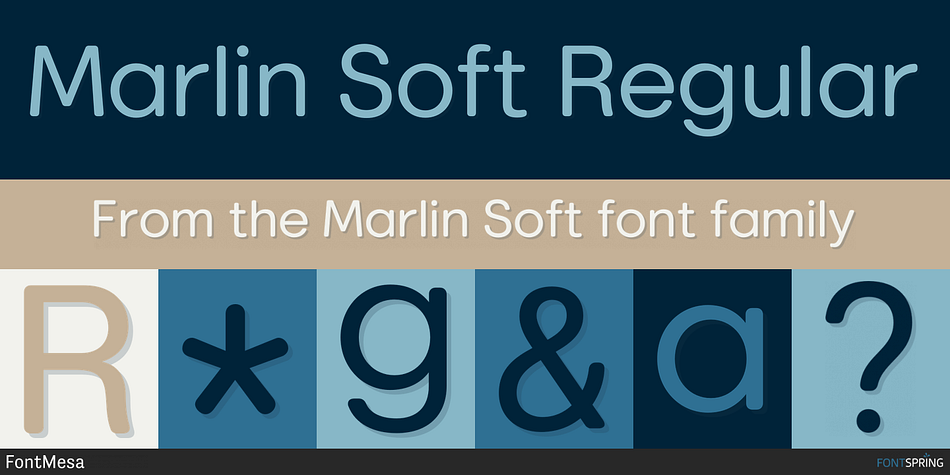
Marlin Soft Regular
Designed by Michael Hagemann, Marlin Soft is a sans serif font family. This typeface has sixty styles and was published by FontMesa.
Marlin Soft is a rounded corner version of our Marlin Sans font family and like its parent font also includes two sets of italics. The standard italic is set at twelve degrees and the slant version set at six degrees, the slant version is perfect for signage and headlines where you may want the look of an italic but are limited on horizontal space.
Marlin Soft includes many alternates which may be accessed using opentype aware applications, with over three hundred alternates to choose from your creative possibilities are great.
Whether you’re looking for a round dot or a square dot Marlin Soft is one font family that delivers both set up as two separate fonts so you may change a whole page of text at one time.
Your projects are sure to look nice and cozy with the warm feeling Marlin Soft will bring to your product label or page design.
Designer Michael Hagemann